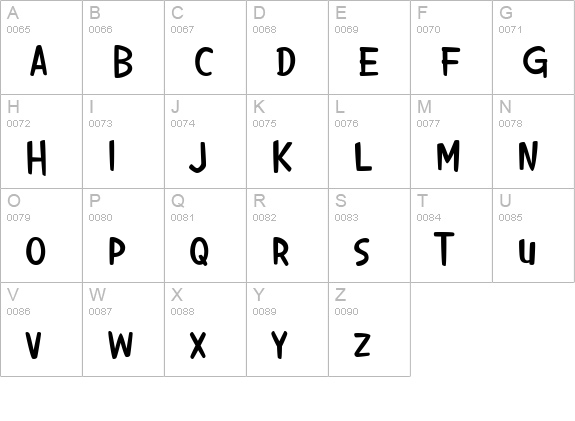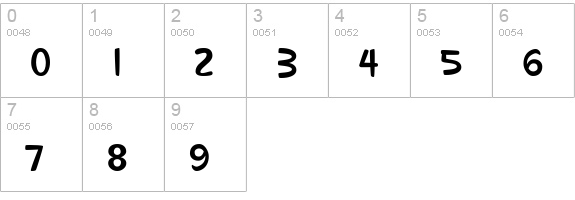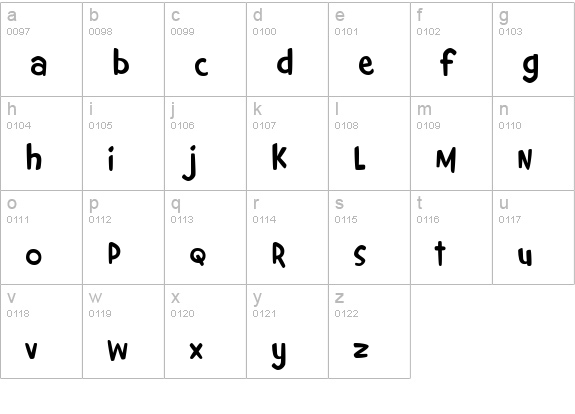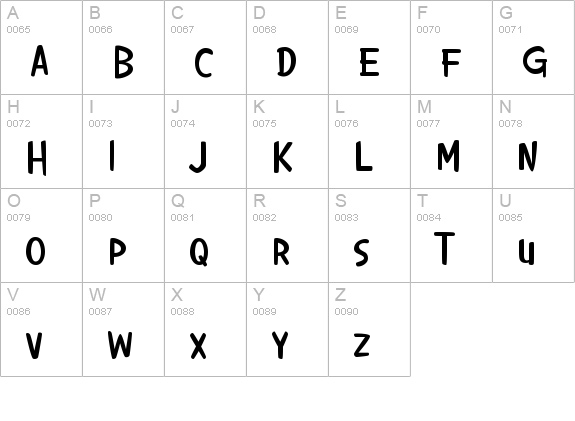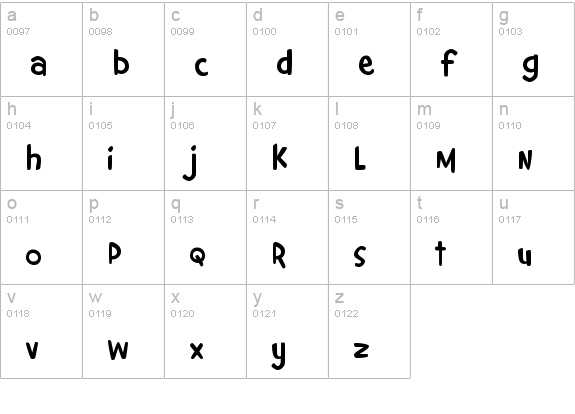
Giggles BTN font is a charming and playful typeface designed to bring a touch of whimsy to your creative projects. With its quirky, hand-drawn look and cheerful demeanor, Giggles BTN is perfect for adding a fun and lighthearted vibe to any design. This font features unique letterforms that are sure to catch the eye and add personality to your text. The best part? Giggles BTN font is available for free download at FontsMarket.com. That's right, you can enjoy this delightful font at no cost and use it in your personal and commercial projects without any restrictions. So go ahead and give your designs a dose of joy and laughter with Giggles BTN font today!